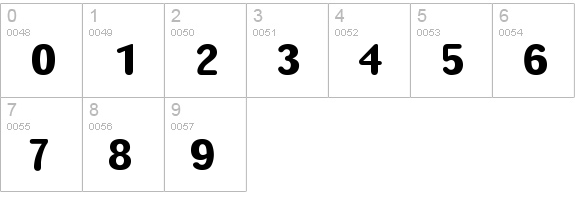
UlissaRounded-Bold Font Details
UlissaRounded-Bold is a strong, high-contrast variant in the UlissaRounded typeface family \xE2\x80\x94 well suited to headlines, attention-grabbing titles, and strong calls-to-action.
UlissaRounded-Bold is a modern and stylish font that exudes confidence and sophistication. With its clean lines and rounded edges, this font is perfect for a wide range of design projects, from branding to advertising. The bold weight adds a touch of impact and boldness, making it stand out in any layout. This font is not only visually appealing, but it also offers great readability, making it suitable for both headlines and body text. Its unique rounded shapes give it a friendly and approachable feel, making it perfect for projects that want to convey a sense of warmth and accessibility. The best part is that UlissaRounded-Bold is available for free! You can easily download this font and start using it in your designs right away. Whether you're a professional designer or a hobbyist, this font is a valuable addition to your font library. To get your hands on UlissaRounded-Bold, simply visit FontsMarket.com, where it is freely available for download. Take advantage of this opportunity to enhance your design projects with a modern and versatile font that is sure to make a lasting impression.